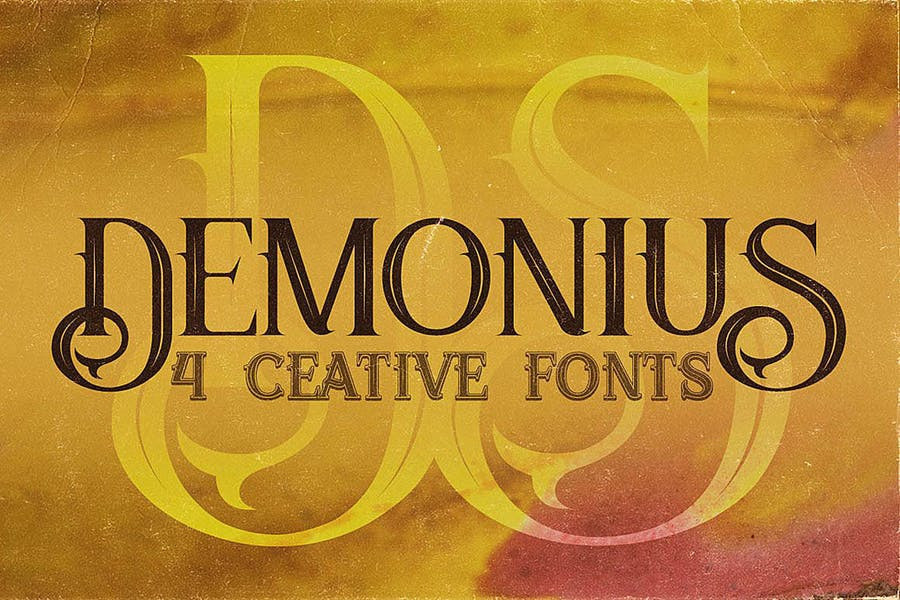
Demonius - 4 Vintage Fonts
Demonius 4 Vintage Fonts is perfect for dark fantasy branding, gothic horror marketing, supernatural entertainment graphics, occult-themed designs, vintage horror movie posters, mystical event promotions, metal band logos, and ominous atmospheric communications.
What makes Demonius 4 Vintage Fonts exciting is its dark mystique that embodies the supernatural allure and gothic atmosphere of vintage horror with demonic authenticity and occult sophistication. The font collection features sinister letterforms with shadow-worn proportions and otherworldly character variations that evoke ancient grimoires, supernatural manuscripts, and the haunting beauty of gothic horror and vintage occult tradition. Its distinctive demonic styling and mystical appeal communicate mystery, power, and supernatural atmosphere, making every message feel summoned from the shadows and touched by the dark elegance of vintage horror and occult mysticism.
The Demonius 4 Vintage Fonts family includes four distinct vintage weights with uppercase and lowercase letters, numerals, punctuation marks, and special characters. Premium versions often feature additional dark alternates and occult elements that enhance the supernatural, gothic aesthetic perfect for horror and mystical applications.
This haunting vintage typeface collection brings instant atmosphere and supernatural credibility to any dark fantasy project. Demonius 4 Vintage Fonts Free Download offers exceptional value for entertainment businesses and gothic brands seeking to communicate supernatural mystery, vintage horror authenticity, and occult sophistication to horror enthusiasts and dark fantasy audiences.
The supernatural character of Demonius 4 Vintage Fonts makes it particularly valuable for horror entertainment companies, gothic fashion brands, and supernatural-themed venues. Its excellent impact ensures dark messaging and mystical communications capture attention while maintaining the distinctive demonic aesthetic that appeals to audiences seeking authentic supernatural experiences and vintage horror atmosphere.
Gothic entertainment marketers appreciate how Demonius 4 Vintage Fonts effortlessly conveys supernatural authenticity and vintage horror appeal. The font collection's sinister proportions and occult details create compelling brand materials that establish connections with audiences who value dark fantasy, supernatural mystery, and the haunting elegance of vintage horror and gothic mysticism.
The versatile darkness of this typeface collection extends to occult publishing, vintage horror collectibles, and supernatural education where demonic authenticity enhances gothic credibility and mystical appeal. Demonius 4 Vintage Fonts Free Download provides creative professionals with an essential tool for developing memorable, mystery-driven designs that resonate with audiences who embrace supernatural horror, vintage gothic style, and the dark sophistication of occult mysticism in their entertainment and gothic experiences.